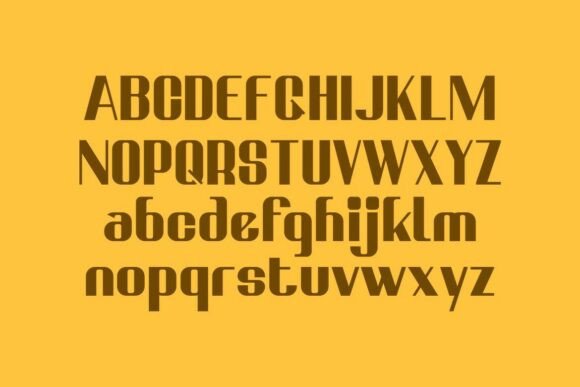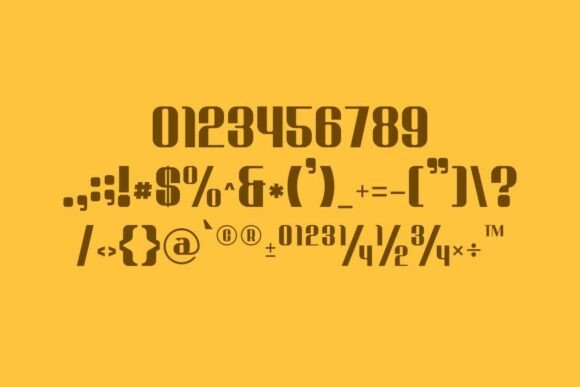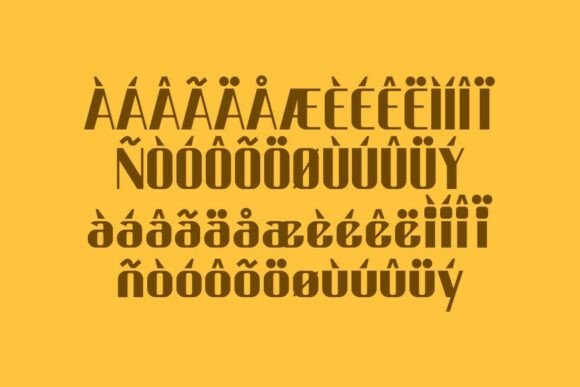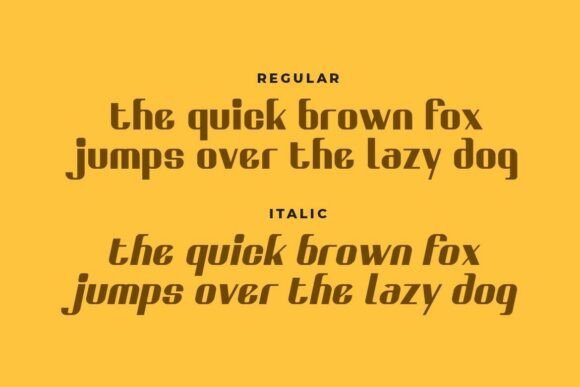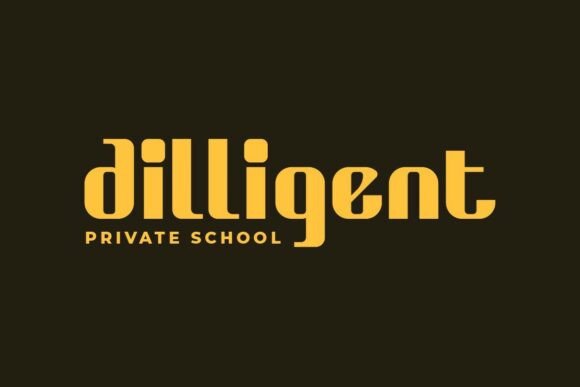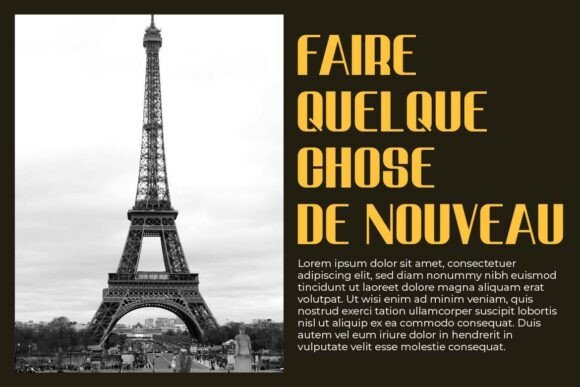
Bekky Font: Elevate Your Designs with a Stylish and Contemporary Sans Serif
In the world of typography, a font can make or break a design. For designers and crafters looking for a stylish and contemporary sans serif font that blends clean design with a unique creative touch, Bekky Font is an excellent choice. This modern font is designed to elevate your branding, editorial layouts, packaging, social media graphics, website headers, and advertising projects with its smooth curves, balanced spacing, and geometric structure.
Clean Design and Unique Creative Touch
Bekky Font boasts a clean design that exudes simplicity and sophistication. Its sans serif style ensures that your message is conveyed clearly and effectively, without any distractions. However, what sets Bekky apart is its unique creative touch. The font’s smooth curves add a touch of elegance, making it perfect for designs that require a bit of flair. Whether you’re working on a luxury brand or a creative project, Bekky Font provides the perfect balance of style and functionality.
Geometric Structure and Balanced Spacing
The geometric structure of Bekky Font is one of its standout features. The font’s design is based on geometric shapes, which gives it a modern and edgy feel. The balanced spacing ensures that the font is easy to read, even at smaller sizes. This makes Bekky Font perfect for a wide range of applications, from website headers to social media graphics. The font’s legibility and aesthetic appeal make it an excellent choice for designers who want to create visually stunning designs that communicate their message effectively.
Perfect for Branding and Editorial Layouts
Bekky Font is an excellent choice for branding and editorial layouts. The font’s clean design and unique creative touch make it perfect for creating a strong brand identity. The font’s versatility ensures that it can be used for a wide range of applications, from logos and business cards to magazine layouts and book covers. Whether you’re working on a personal project or a client’s brief, Bekky Font provides the perfect combination of style and functionality.
Packaging, Social Media Graphics, and Website Headers
In addition to branding and editorial layouts, Bekky Font is also perfect for packaging, social media graphics, and website headers. The font’s modern design and geometric structure make it an excellent choice for creating eye-catching packaging designs that stand out on store shelves. For social media graphics, Bekky Font’s clean design and balanced spacing ensure that your message is conveyed clearly and effectively, even at smaller sizes. When it comes to website headers, Bekky Font’s smooth curves and elegant feel make it perfect for creating a professional and sophisticated online presence.
Modern Advertising Projects
Bekky Font is also an excellent choice for modern advertising projects. The font’s unique creative touch and geometric structure make it perfect for creating eye-catching billboards, posters, and print ads. The font’s legibility and aesthetic appeal ensure that your message is conveyed clearly and effectively, even at a distance. Whether you’re working on a large-scale advertising campaign or a small personal project, Bekky Font provides the perfect combination of style and functionality.
Why Choose Bekky Font?
So why choose Bekky Font for your next design project? Here are just a few reasons:
- Clean design and unique creative touch: Bekky Font boasts a clean design that exudes simplicity and sophistication, with a unique creative touch that adds a bit of flair.
- Geometric structure and balanced spacing: The font’s geometric structure and balanced spacing ensure that it is easy to read, even at smaller sizes.
- Versatility: Bekky Font is perfect for a wide range of applications, from branding and editorial layouts to packaging, social media graphics, website headers, and modern advertising projects.
- Legibility and aesthetic appeal: The font’s legibility and aesthetic appeal make it an excellent choice for designers who want to create visually stunning designs that communicate their message effectively.
In conclusion, Bekky Font is a stylish and contemporary sans serif font that is perfect for designers and crafters looking for a clean and unique creative touch. Its geometric structure, balanced spacing, and smooth curves make it perfect for a wide range of applications. Whether you’re working on a branding project, editorial layout, packaging design, social media graphic, website header, or modern advertising project, Bekky Font provides the perfect combination of style and functionality.